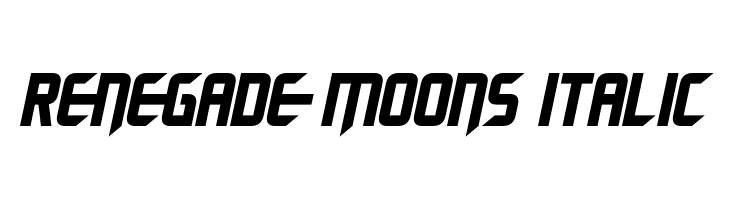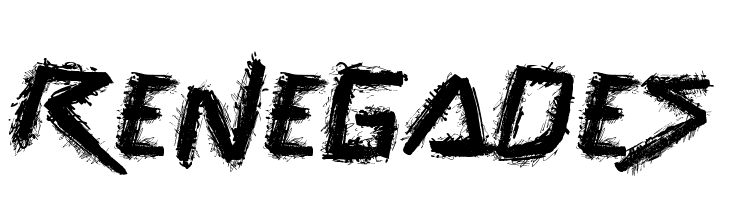
• Renegade Moons Italic 字体
• Renegade Of South 字体
A dynamic, slanted handwritten font with medium contrast and excellent readability.
• Renegades 字体
A bold, distressed font with a graffiti-inspired, hand-drawn look.
• Renegades Rocks 字体
A bold, distressed font with a rugged, vintage aesthetic.
• Renegado 3D 字体
A bold, 3D geometric font with a futuristic and industrial style.
• Renegado 3D Italic 字体
A bold, 3D italic font with a futuristic and dynamic style.
• Renegado Condensed 字体
A bold, futuristic, and condensed font with a geometric design.
• Renegado Condensed Italic 字体
A bold, condensed, and italicized font with a modern and dynamic style.
• Renegado Expanded 字体
A bold, futuristic font with wide, angular characters and a geometric style.